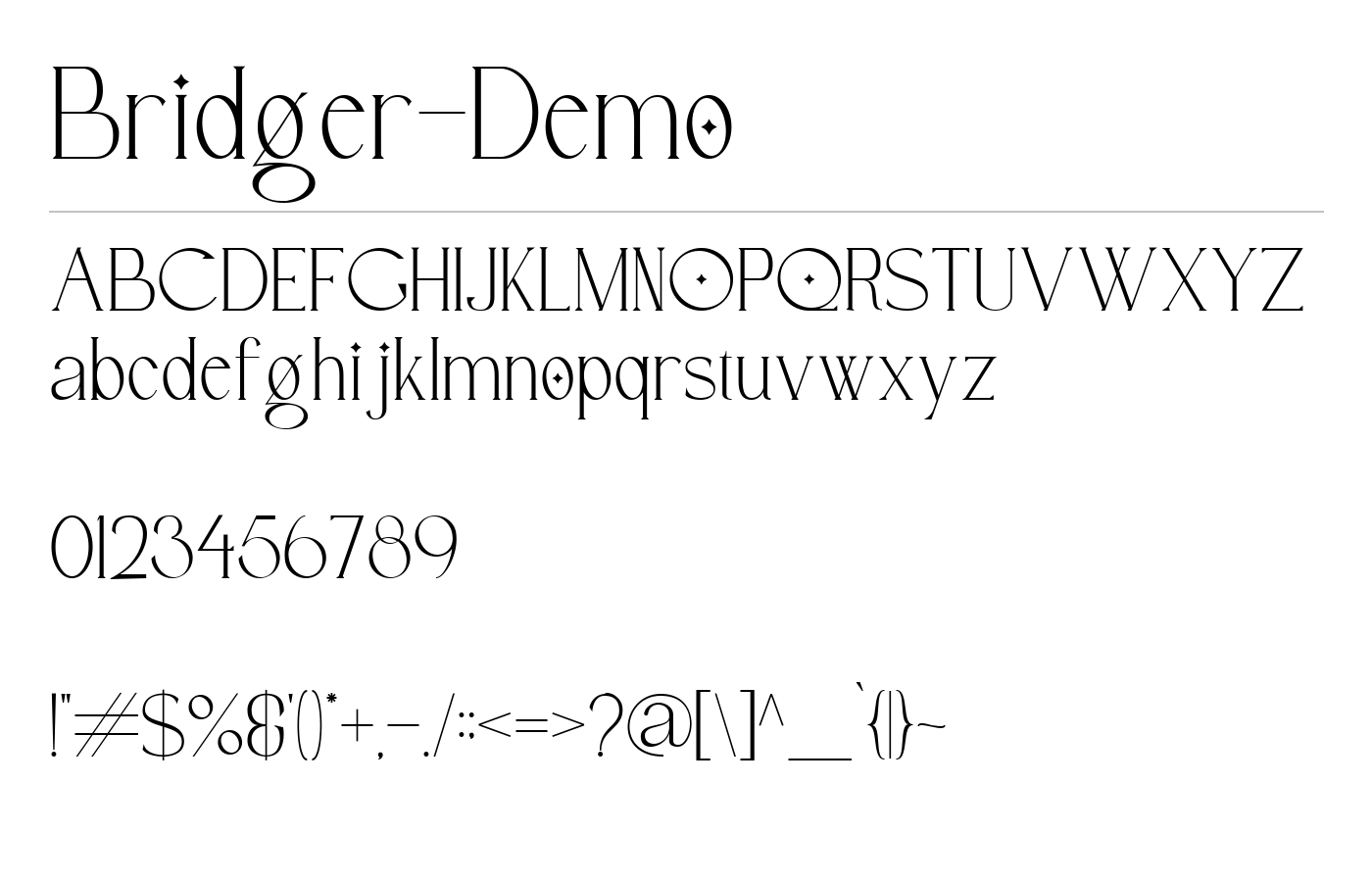
Bridger-Demo is a slender, elegant serif font with high contrast between its thin and thick strokes, featuring unique geometric details like diamond-shaped counters that bring a refined, artistic flair. Its tall x-height and delicate, bracketed serifs make it perfect for sophisticated branding, editorial headlines, and luxury packaging where a modern yet classic look is desired. The font’s graceful and distinctive style adds a sense of exclusivity and creativity to any design.
Bridger-Demo Font
About Bridger-Demo Font
| Font family | Bridger-Demo Font |
| Designer | mjtype.com (Muhamad Junaid) |